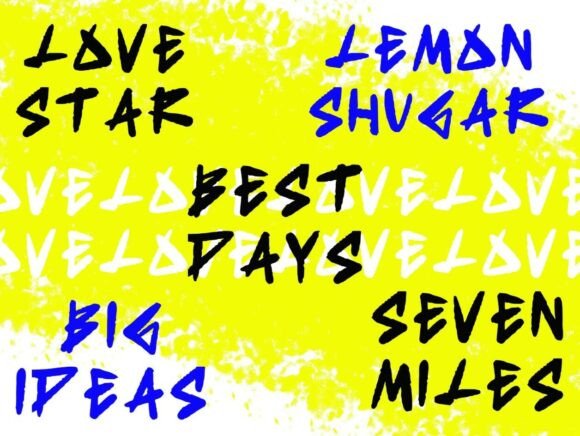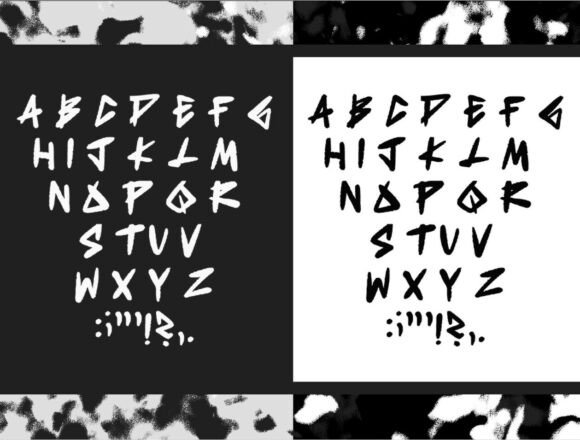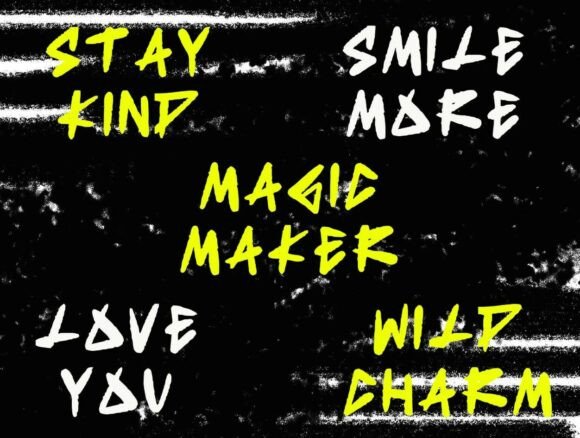
Unleash the Urban Spirit: Exploring the Raw Energy of Hand Drawn Graffiti Fonts
In the vibrant world of urban art, graffiti stands out as a powerful medium of self-expression and rebellion. The streets become a canvas, where artists channel their emotions, ideas, and experiences into bold, eye-catching works of art. One of the most distinctive and sought-after styles in this realm is the hand-drawn graffiti font, a typeface that embodies the raw, unbridled energy of street art. Among these, the HAND DRAWING GRAFFITI TTF FONT has emerged as a game-changer for designers and artists looking to infuse their projects with an authentic, urban aesthetic.
The Essence of Hand Drawn Graffiti Fonts
Hand-drawn graffiti fonts are more than just a collection of letters; they are a representation of the urban landscape’s pulse. These typefaces capture the essence of street art, with its jagged edges, uneven strokes, and a deliberately frantic appearance. This aesthetic is reminiscent of bold, high-pressure spray paint or thick marker scrawl, giving any design an unmistakable edge. The HAND DRAWING GRAFFITI TTF FONT takes this concept to the next level, offering a distinctive display typeface that is as impactful as it is authentic.
Characteristics of the HAND DRAWING GRAFFITI TTF FONT
So, what sets the HAND DRAWING GRAFFITI TTF FONT apart from other typefaces? Here are a few key characteristics:
- Jagged Edges and Uneven Strokes: The font features irregularities that mimic the natural, unplanned look of graffiti art.
- Frantic Appearance: The design exudes a sense of urgency and energy, as if the words are bursting to be seen.
- Authentic Urban Feel: The font’s aesthetic is deeply rooted in street culture, making it perfect for designs that require an edgy, rebellious vibe.
Applications of the HAND DRAWING GRAFFITI TTF FONT
The versatility of the HAND DRAWING GRAFFITI TTF FONT makes it suitable for a wide range of applications. Here are some of the most popular uses:
- Apparel: Add a touch of urban flair to t-shirts, hoodies, and other clothing items.
- Music Branding: Perfect for album covers, posters, and merchandise for musicians and bands looking for an edgy look.
- Event Promotion: Use the font to create eye-catching flyers, posters, and social media graphics for concerts, festivals, and other events.
- Street Art and Urban Projects: Ideal for artists and designers working on projects that require an authentic street art aesthetic.
Why Choose the HAND DRAWING GRAFFITI TTF FONT?
For designers and crafters looking to infuse their work with a genuine urban spirit, the HAND DRAWING GRAFFITI TTF FONT is an indispensable tool. Here are a few reasons why:
- Authenticity: The font’s design is deeply rooted in street culture, ensuring your projects look authentic and rebellious.
- Impact: The bold, frantic appearance of the font guarantees that your message will be delivered with raw energy and impact.
- Versatility: Suitable for a wide range of applications, from apparel to event promotion.
| Font Name | Hand Drawn Graffiti Font |
| Author | Мaria Krasnova |
The HAND DRAWING GRAFFITI TTF FONT is more than just a typeface; it’s a statement. It’s a way to channel the raw, energetic chaos of the street into your designs, adding an unmistakable edge that sets your work apart. Whether you’re a designer, artist, or crafter, this font offers a unique opportunity to tap into the urban artistry that defines street culture. So, unleash the urban spirit in your projects and make a lasting impact with the HAND DRAWING GRAFFITI TTF FONT.
Embrace the power of street art and elevate your designs with the authentic, rebellious aesthetic of the HAND DRAWING GRAFFITI TTF FONT. Let your creativity run wild and make a statement with every project.